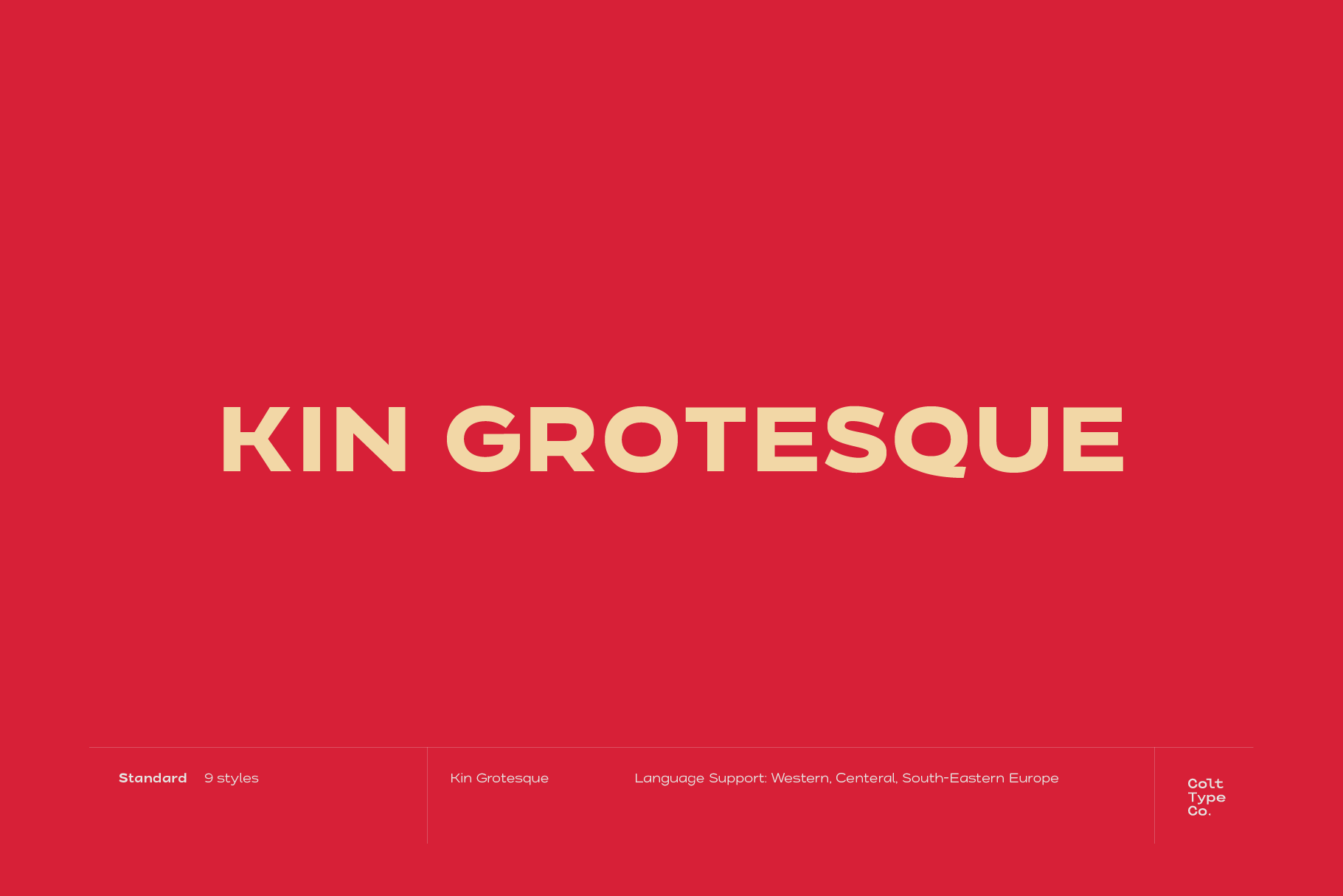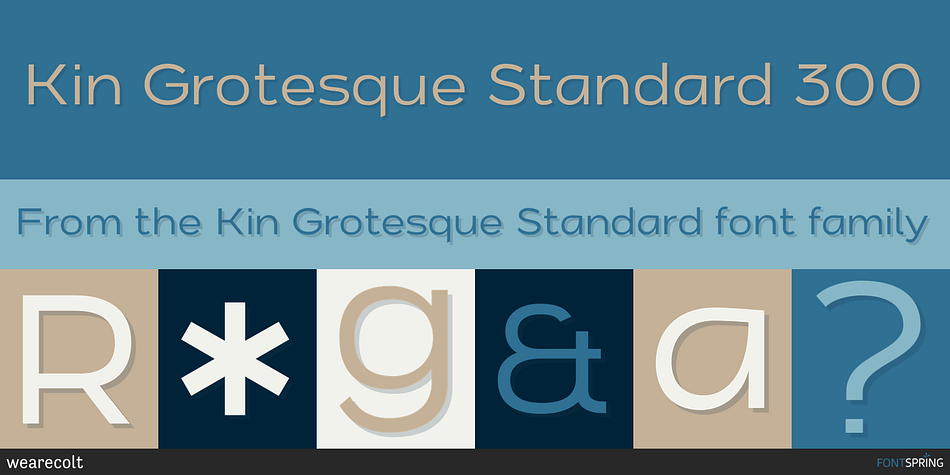
Kin Grotesque Standard 300
Kin Grotesque Standard is a sans serif font family. This typeface has nine styles and was published by wearecolt.
Introducing Kin Grotesque   font family by We Are Colt
Kin Grotesque has been created to be your new go-to grotesque font that will work well for body copy and headlines.
With nine standard weights, this font will fit a myriad of uses such as; editorial headings, body text and logo design.
Kin Grotesque is a sans serif modern classic grotesque font, perfect for adding personality to logos and brochures.
• 9 separate font weights
• Western European, Central, South-eastern
• Upper and lowercase
• Numerals